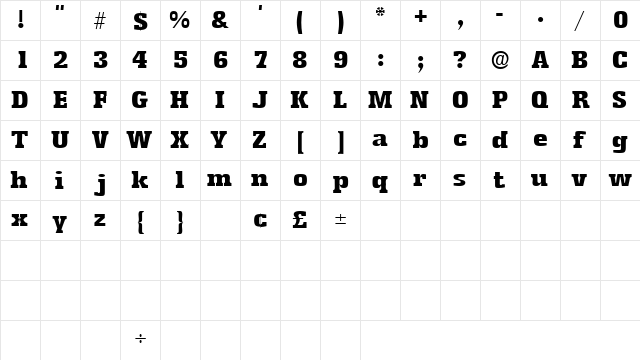
KamanSSK Regular
Design Context for KamanSSK Typeface
KamanSSK takes a measured approach to typography — its balanced proportions and neutral character make it a reliable workhorse for both digital and print work.